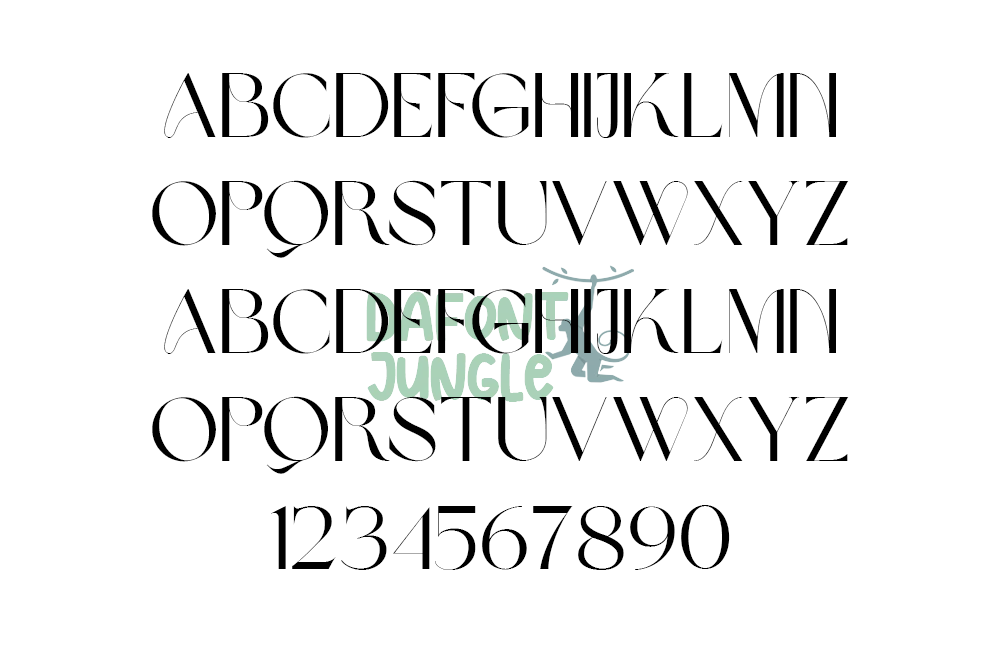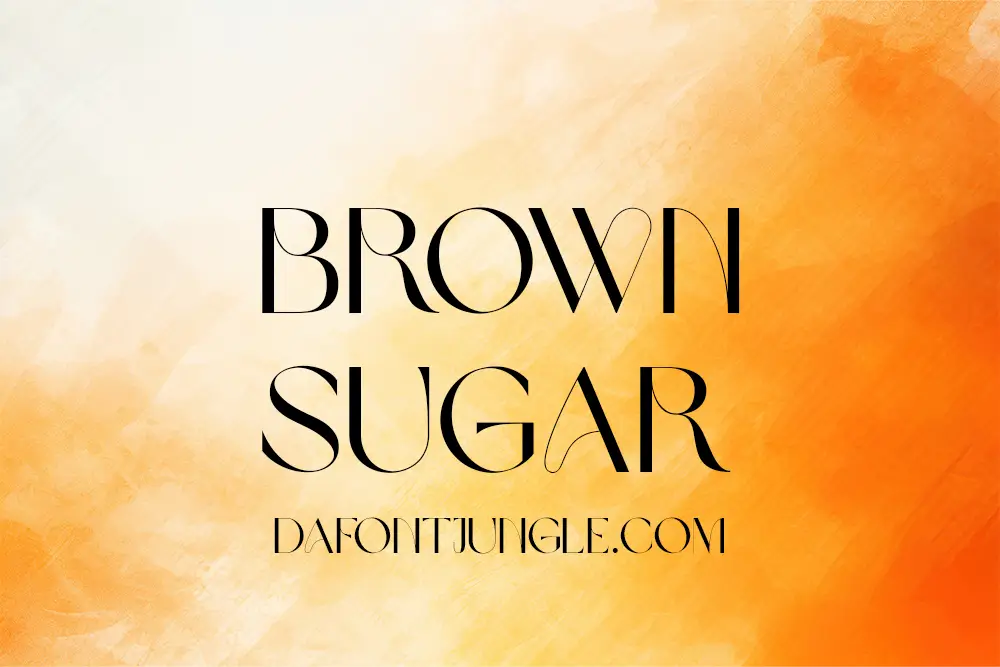
Brown Sugar – Stylish Modern Serif Font
Brown Sugar is a bold serif font with a modern, stylish look. It includes uppercase letters, numbers, and a wide range of punctuation. The font works well in many design settings—from posters and web design to branding, badges, and illustrations.
Its clean lines and sharp curves give your work a professional yet creative feel. Whether you’re working on digital or print projects, Brown Sugar adds a sleek and polished touch.